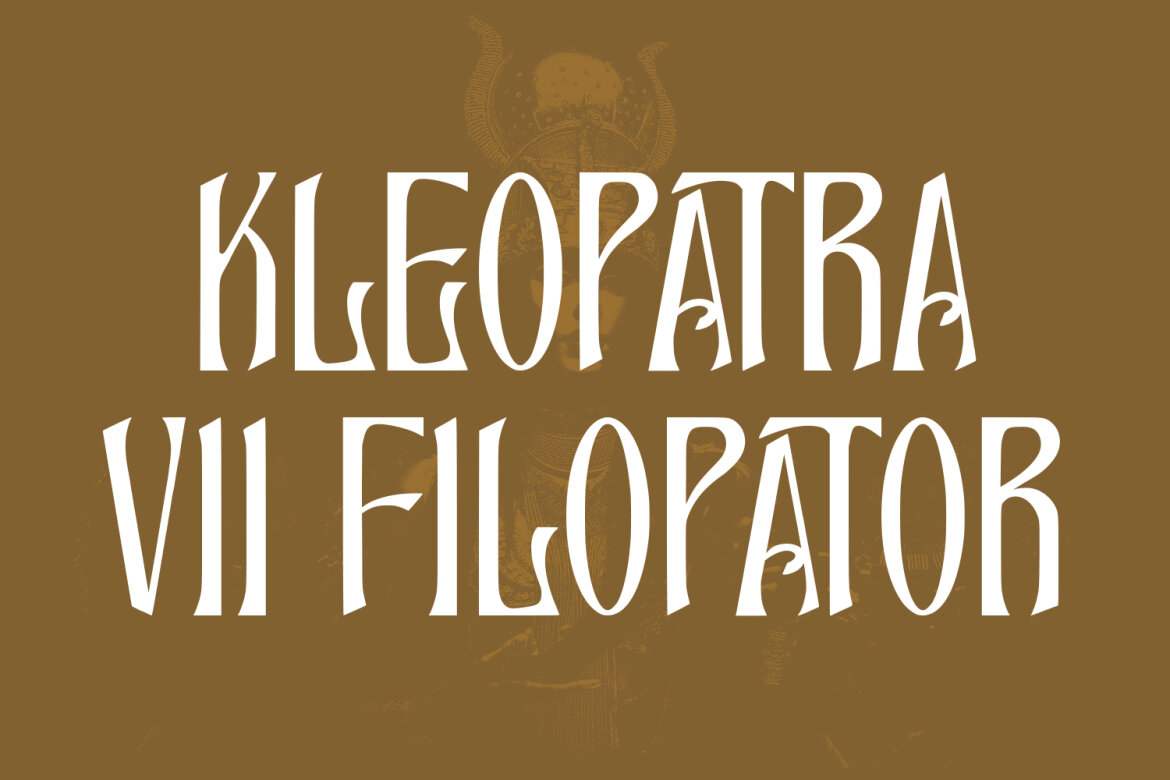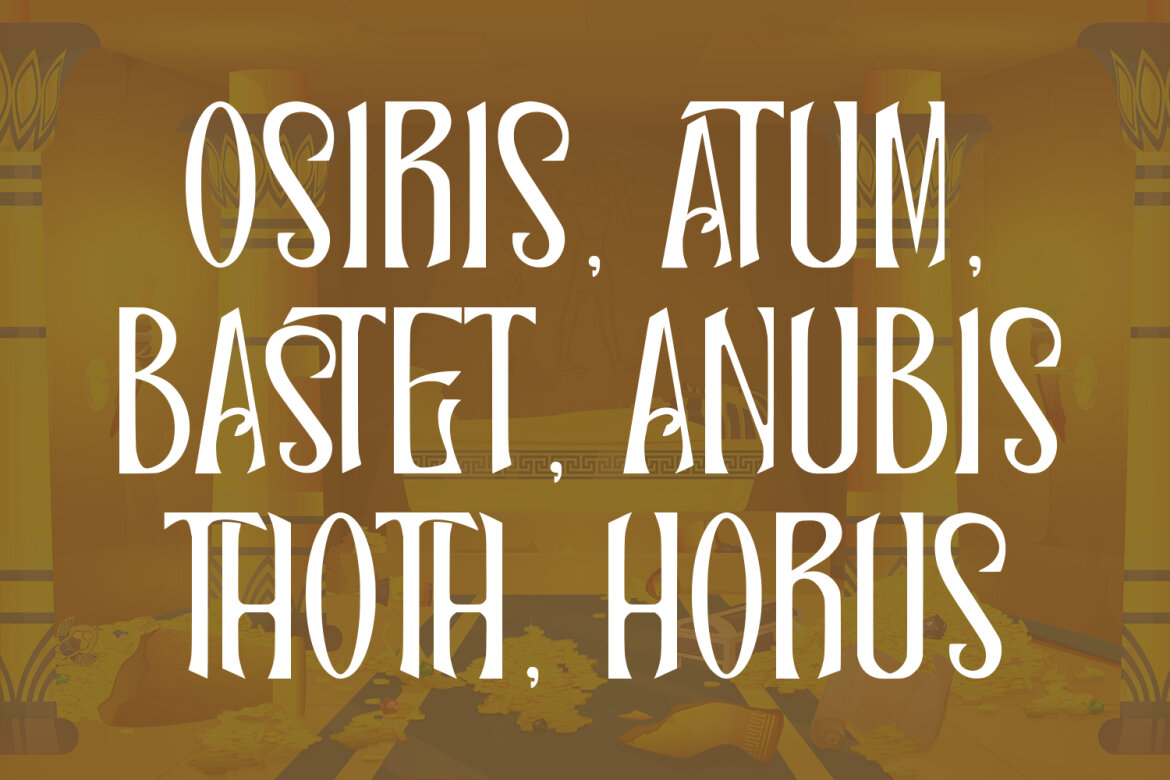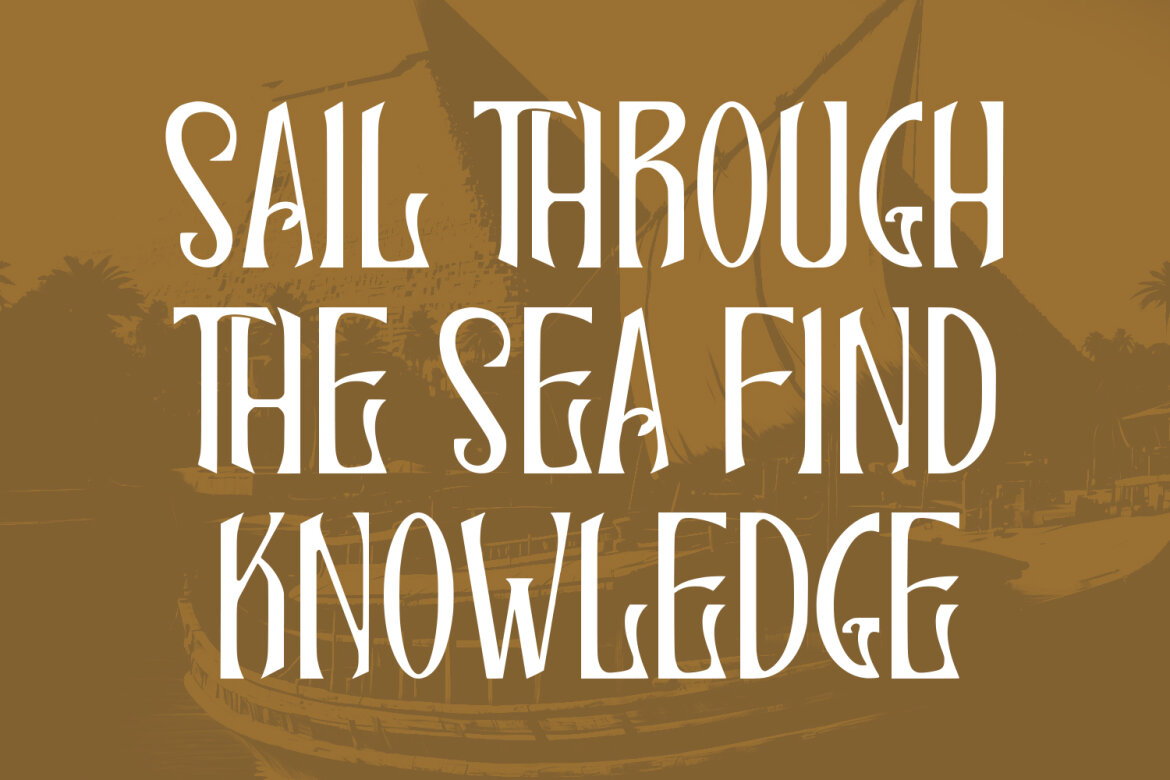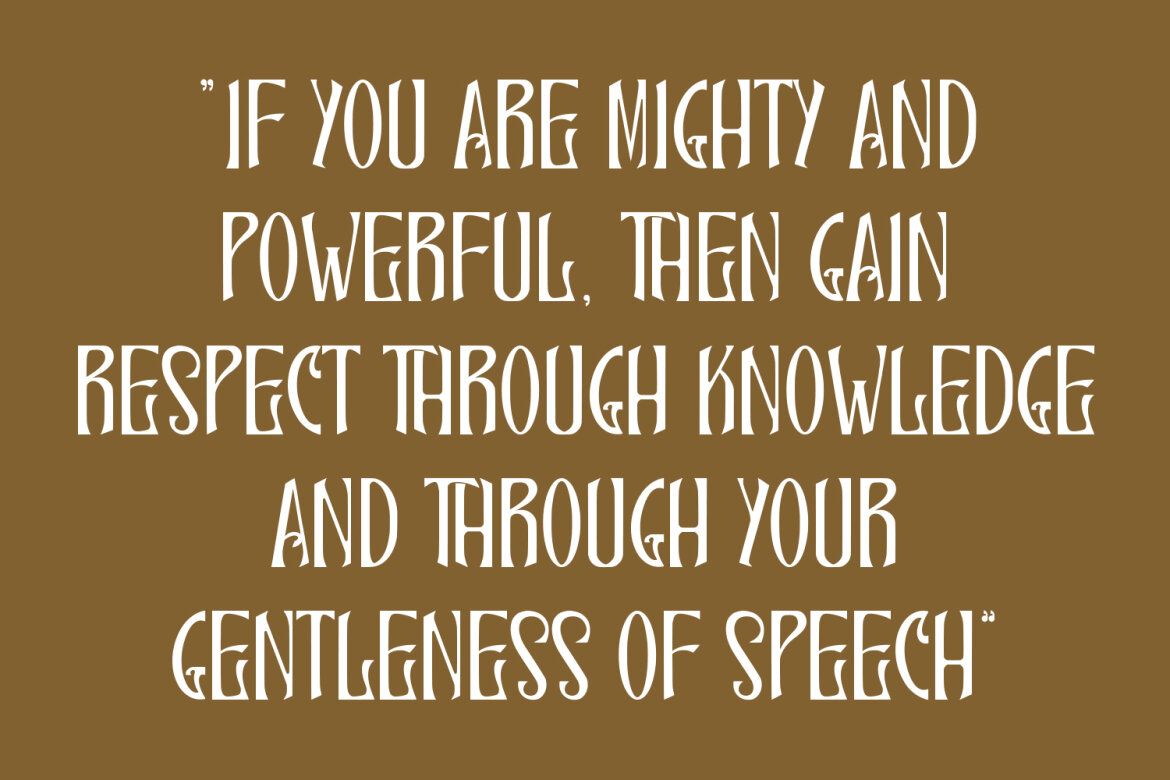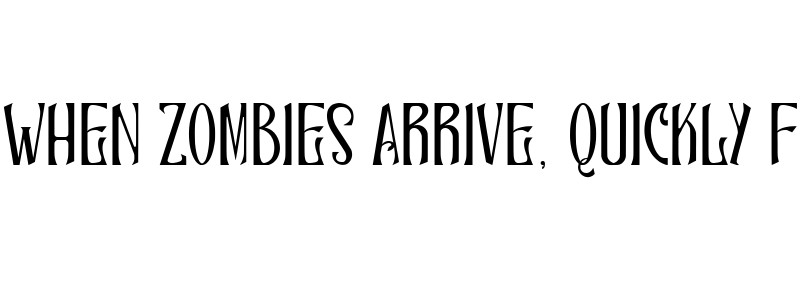
Lemarres Decorative FREE Font
Lemarres
Lemarres is a Decorative Serif Font. fun character with a bit of ligatures. To give you an extra creative work. Lemarres font support multilingual more than 100+ language. This font is good for Headline, logo design, Social media, Movie Titles, Books Titles, a short text even a long text letter and good for your secondary text font with sans or serif. Make a stunning work with Lemarres font.